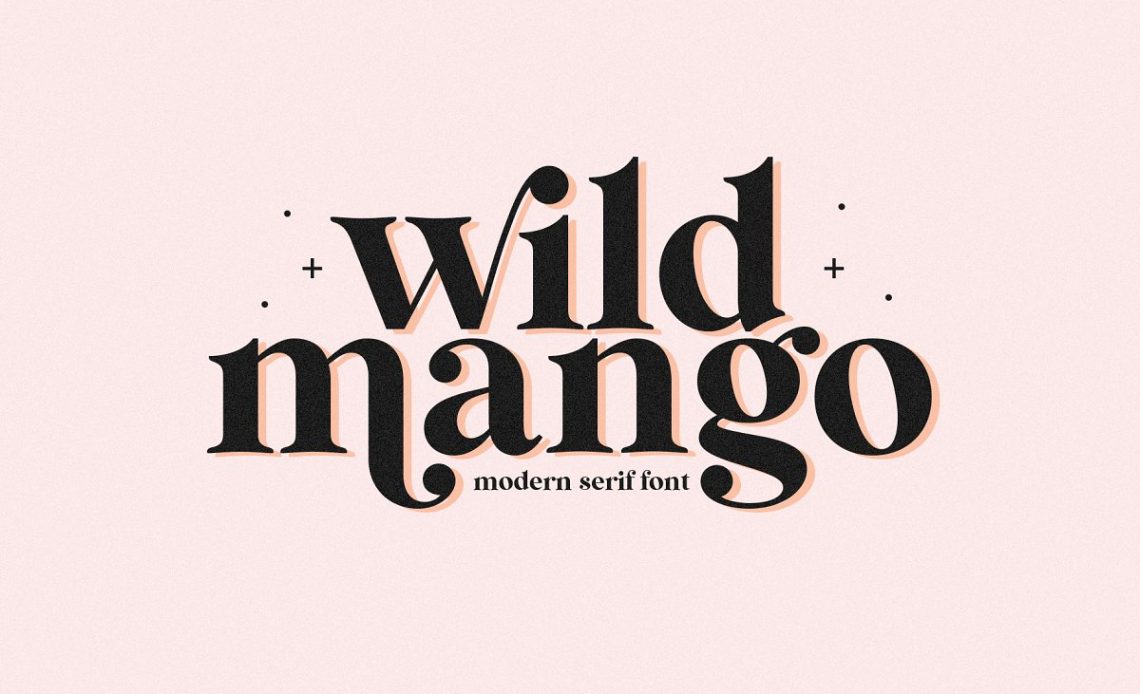
Introducing Wild Mango - the ultimate modern serif font designed by Kaitlynn Albani. This chic and stylish font is a must-have for anyone looking to elevate their branding, logos, social media, prints, stickers, shirts, svg files and more!
Wild Mango is a versatile font that can be used for a variety of design styles. Its unique charm and character make it perfect for free-spirited, boho designs, while also being suitable for more classy and editorial looks. Whether you're creating a logo for your business or designing a poster for your next event, Wild Mango is the font that will make your work stand out from the crowd.
One of the best features of Wild Mango is its stylistic alternates. These fun and playful letters are embedded in the font file and can be easily accessed in programs such as Photoshop and Illustrator. This allows you to add a personal touch to your designs, making them truly unique and one-of-a-kind.